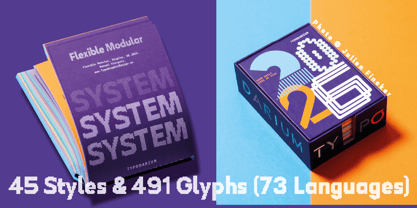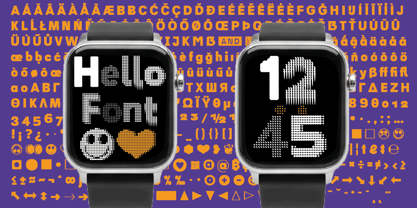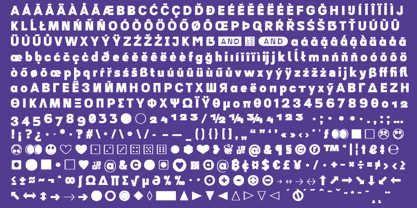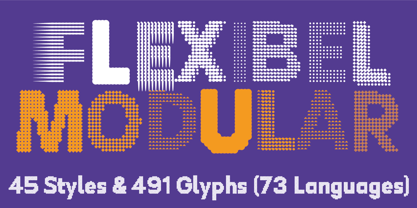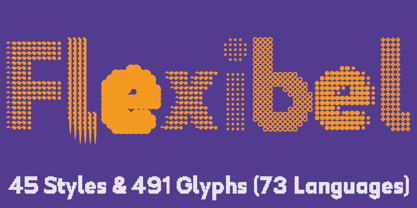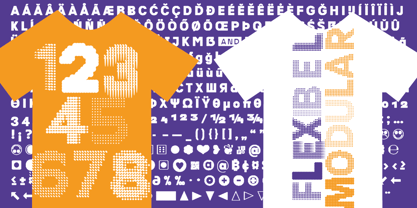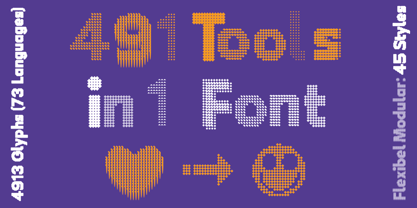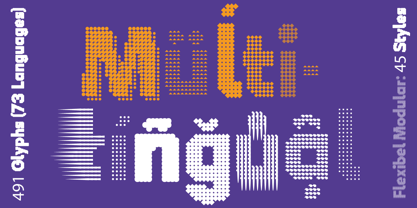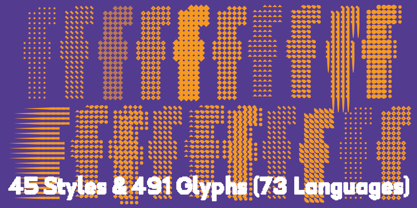
Flexibel Modular
by TypoGraphicDesign
The Flexibel Modular Font Family was designed by Manuel Viergutz and published by TypoGraphicDesign. Flexibel Modular contains 45 styles and family package options.
The Sans Serif typeface Flexibel Modular is designed from 2024–2025 for the font foundry Typo Graphic Design by Manuel Viergutz based on a font by Jens Kreitmeyer for an alphabetization app. With 491 glyphs (Adobe Latin 2) incl. 100+ decorative extras like icons, arrows, catch words, dingbats, emojis, symbols, geometric shapes (type the word #LOVE for ❤ or #SMILE for ☺ as OT-Feature dlig) and stylistic alternates (4 stylistic sets) and a lot of font-styles like Circle, Pattern, Diamond, Dot, Pixel, Square, Triangle, Mix … 45 font-stlyes! Have fun with this typeface & use the DEMO-FONT (with reduced glyph-set) FOR FREE!   Story Behind the Font (Making Of) Form + Grid = Flexibel System Font Add a form (geometric or freestyle) on a Grid and you create a Pattern as flexible Design-System   Font Spe­ci­fi­ca­ti­ons ■ Product Category: Font, Vector ■ Delivery: immediately (Download-Link) ■ Font Name: Flexibel Modular ■ Font Styles: 45 font-styles (Circle, Pattern, Diamond, Dot, Pixel, Square, Triangle, Mix …) ■ Font Cate­gory: Variable Sans Serif for head­line size ■ Font For­mat: O-T-F (Mac + Win, for Print) + W-O-F-F (for Web) ■ Glyph Set: 491 glyphs (Adobe Latin 2 incl. decorative extras) ■ Lan­guage Sup­port (73 languages): Afrikaans Albanian Asu Basque Bemba Bena Breton Catalan Chiga Colognian Cornish Danish Dutch English Estonian Faroese Filipino Finnish French Friulian Galician German Gusii Hungarian Icelandic Indonesian Irish Italian Kabuverdianu Kalenjin Kinyarwanda Lower Sorbian Luo Luxembourgish Luyia Machame Makhuwa-Meetto Makonde Malagasy Manx Morisyen North Ndebele Norwegian Bokmål Norwegian Nynorsk Nyankole Oromo Portuguese Quechua Romansh Rombo Rundi Rwa Samburu Sango Sangu Scottish Gaelic Sena Shambala Shona Slovenian Soga Somali Spanish Swahili Swedish Swiss German Taita Teso Upper Sorbian Uzbek (Latin) Volapük Vunjo Zulu ■ OT Features (24): aalt case ccmp dlig dnom frac fwid hwid liga lnum numr onum ordn sinf ss01 ss02 ss03 ss04 subs sups zero kern mark mkmk ■ Specials: Capital Letter Sharp S (German Versal Eszett U+1E9E) ẞ, Catchwords like FOR, Emojis like Smiley ☺ ☻, Symbols like Heart ♥︎, arrows ➡︎, Geometric Shapes ▲ ⚫️ , Variable Font ■ Design Date: 2025 ■ Type Desi­gner: Manuel Viergutz
Designers: Manuel Viergutz
Publisher: TypoGraphicDesign
Foundry: TypoGraphicDesign
Design Owner: TypoGraphicDesign
Flexibel Modular